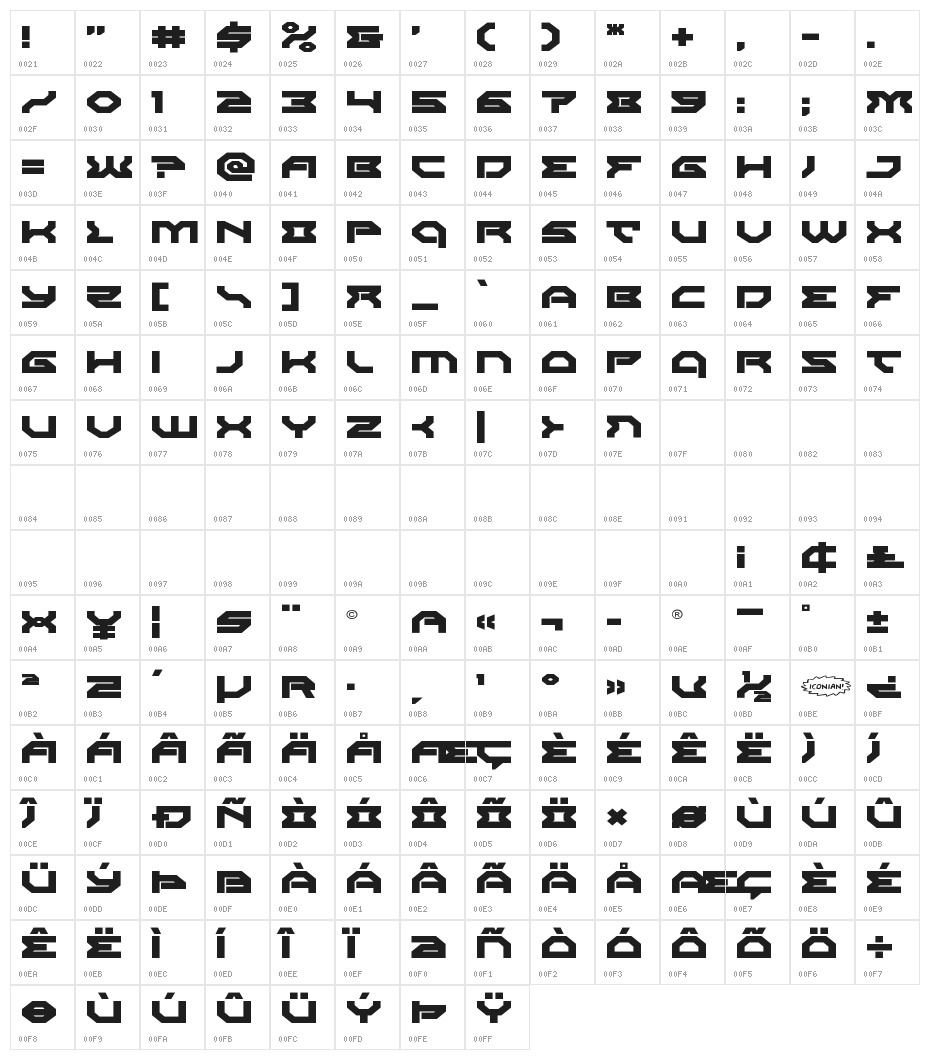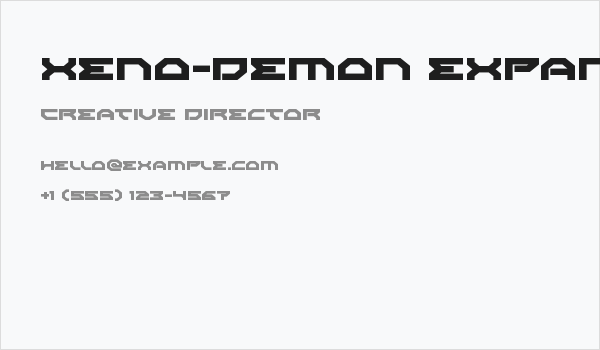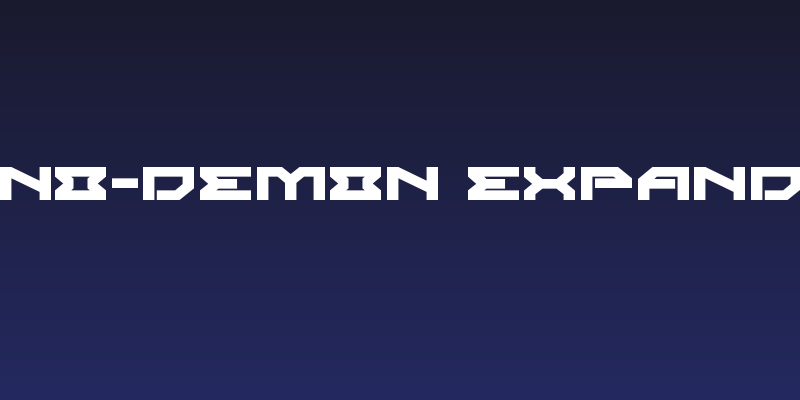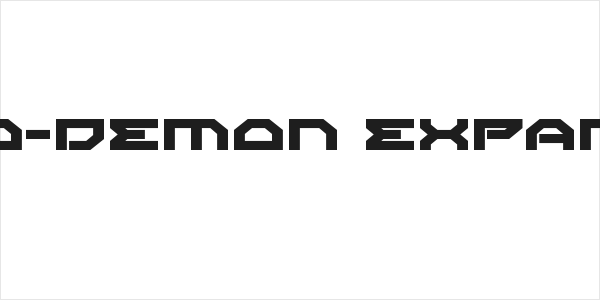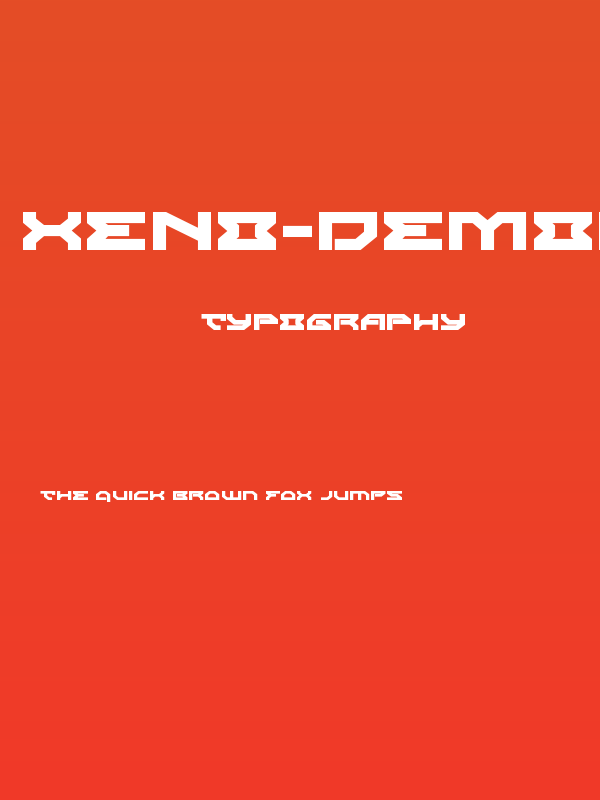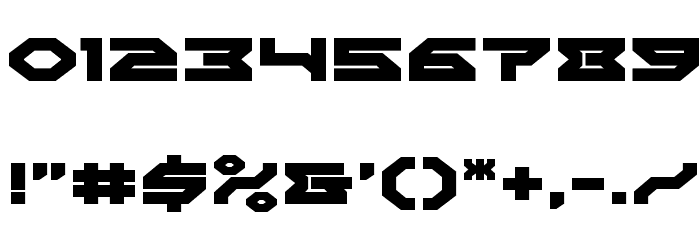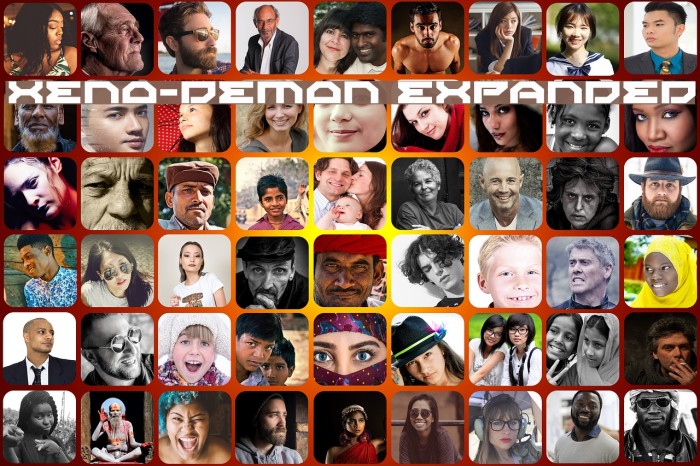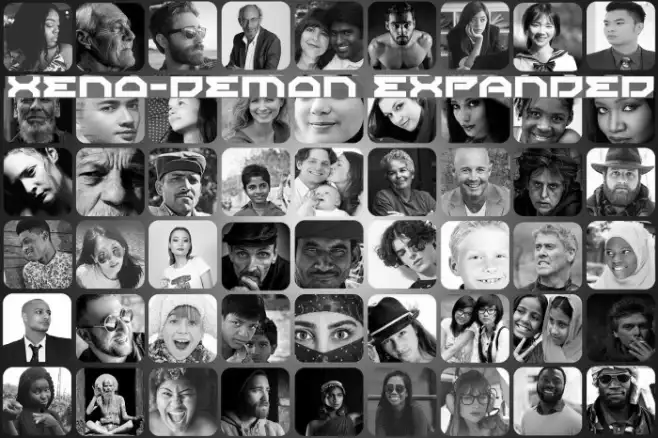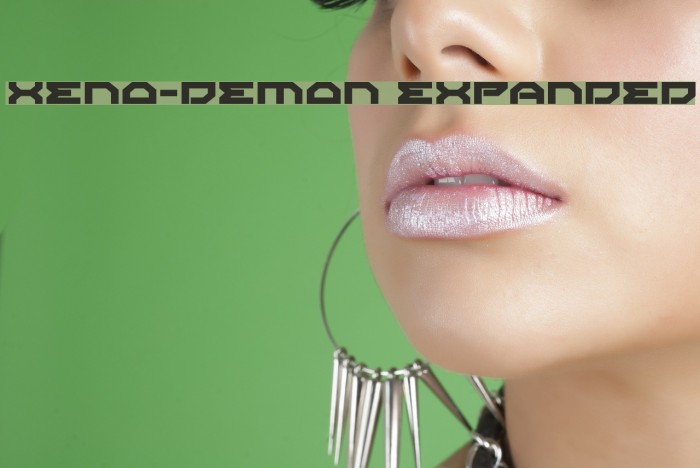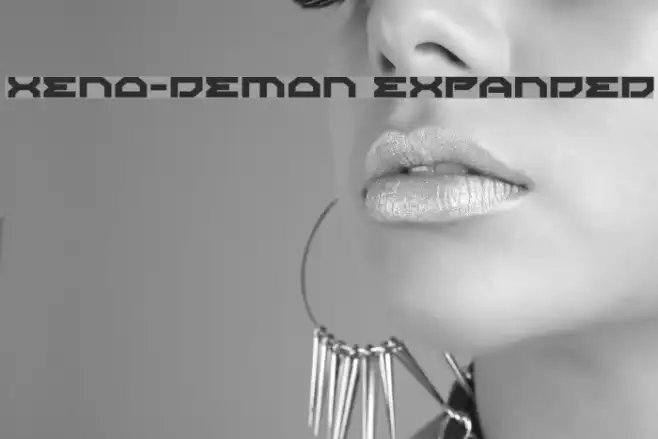
Xeno-Demon Expanded Font
Xeno-Demon Expanded Description
This font features a bold, futuristic design with angular and geometric shapes. The characters are constructed with sharp edges and a blocky appearance, giving it a distinct and modern look. The uppercase and lowercase letters maintain a consistent style, with uniform stroke thickness and a strong visual impact. The numerals and special characters follow the same design principles, ensuring a cohesive appearance across all glyphs. The font's expanded width adds to its boldness, making it stand out in any design context.
| Proposed Projects | Ideal for sci-fi themed projects, video game titles, tech branding, and futuristic posters. |